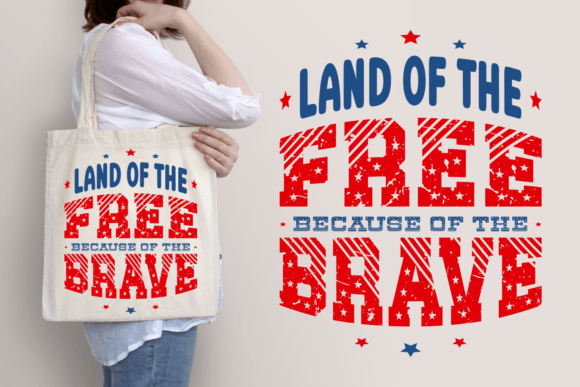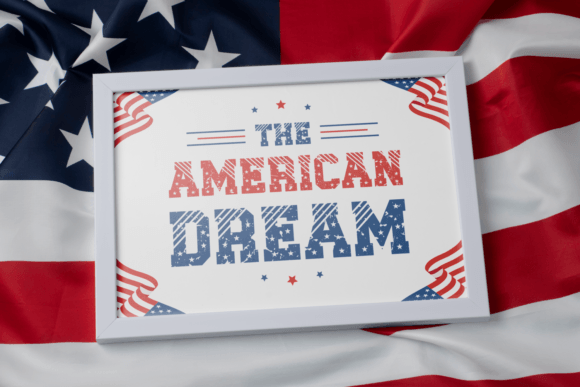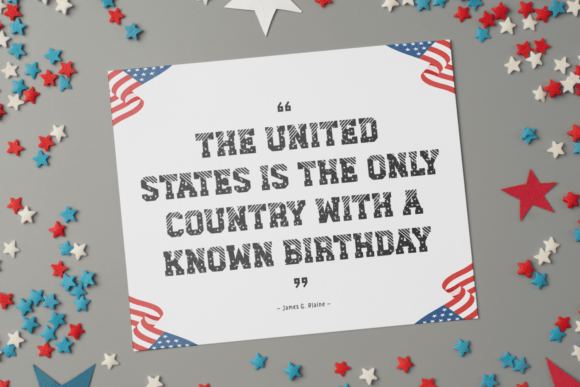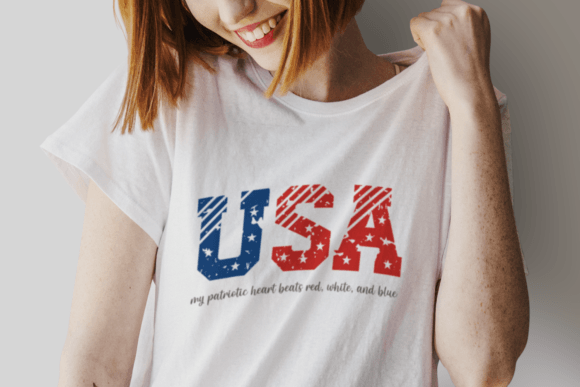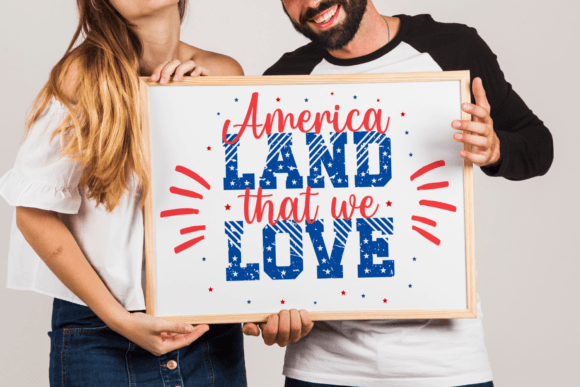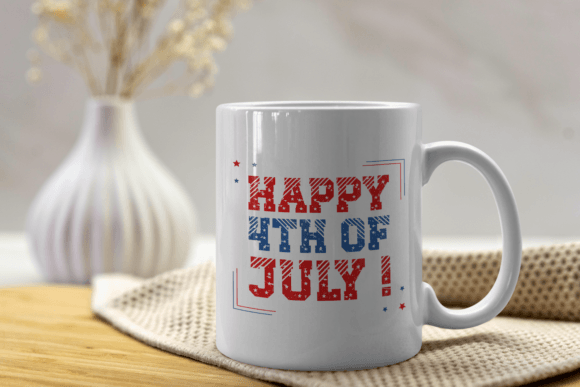
Unleashing the Spirit of Freedom: Introducing Glory March Font
Have you ever been brainstorming a design project and suddenly, a burst of creativity hits you like a ray of sunshine on a patriotic holiday? That’s exactly what happened to many designers who discovered the Glory March Font. This stunning font is more than just a decorative typeface – it’s a celebration of American heritage and values.
As a designer, you’re constantly looking for ways to add an extra layer of meaning to your projects. That’s where the Glory March Font comes in. With its intricate design featuring the American flag motif, this font is the perfect tool to evoke the patriotic spirit in your designs. From Independence Day celebrations to Veterans Day tributes, the Glory March Font is a valuable asset for any designer who wants to add a touch of American pride to their work.
- Font Family: Glory March
- Unique Characteristics: The Glory March font features a dynamic, energetic design with a mix of bold and elegant lines, making it ideal for titles, headings, and other display text.
Designer Review: Glory March Font
Overall, I found the Glory March Font to be an interesting and unique choice for digital and print projects. ✨ One of its strongest aspects is its bold and energetic feel, making it perfect for titles and headings. The font also includes a range of weights and styles, giving designers plenty of options to experiment with.
The font’s versatility is a major plus, as it can be used in a variety of contexts, from modern websites and social media platforms to traditional magazines and brochures. ✨ Additionally, the font’s bold lines and geometric shapes give it a modern and sleek look, which can help to convey a sense of sophistication and professionalism.
However, I did find a few limitations with the Glory March Font that may affect its usability. ⚠️ For example, the font’s bold lines and geometric shapes can sometimes make it difficult to read, especially in smaller font sizes. Additionally, the font may not be suitable for projects that require a more subtle or elegant look.
While the Glory March Font has its limitations, I think it’s a great choice for designers who want to add a bold and modern touch to their projects. With its range of weights and styles, it’s a versatile font that can be used in a variety of contexts. However, it’s essential to consider the font’s limitations and use it thoughtfully to avoid any potential issues.
- Bold and energetic feel
- Range of weights and styles
- Modern and sleek look
- Geometric shapes and bold lines
- Perfect for titles and headings
Tips for Getting the Most Out of Glory March Font
For best results, use the Glory March font in bold or italic styles to add emphasis and visual interest.
Pair the font with a clean and simple background to let the text stand out.
The Glory March font is ideal for:
Creating bold and eye-catching headlines and titles.
Designing inspirational and motivational graphics and quotes.
Adding a touch of elegance and sophistication to wedding invitations and stationery.